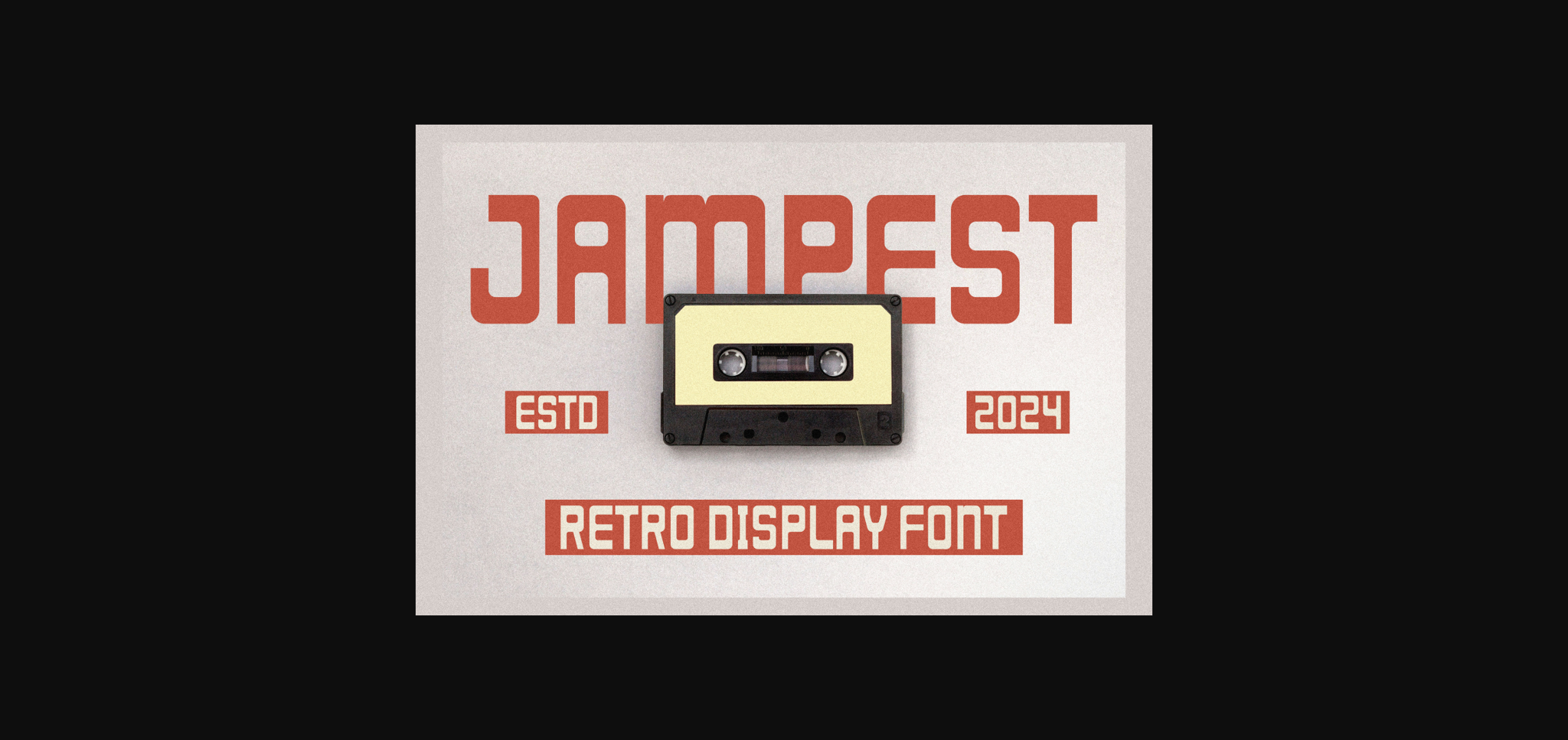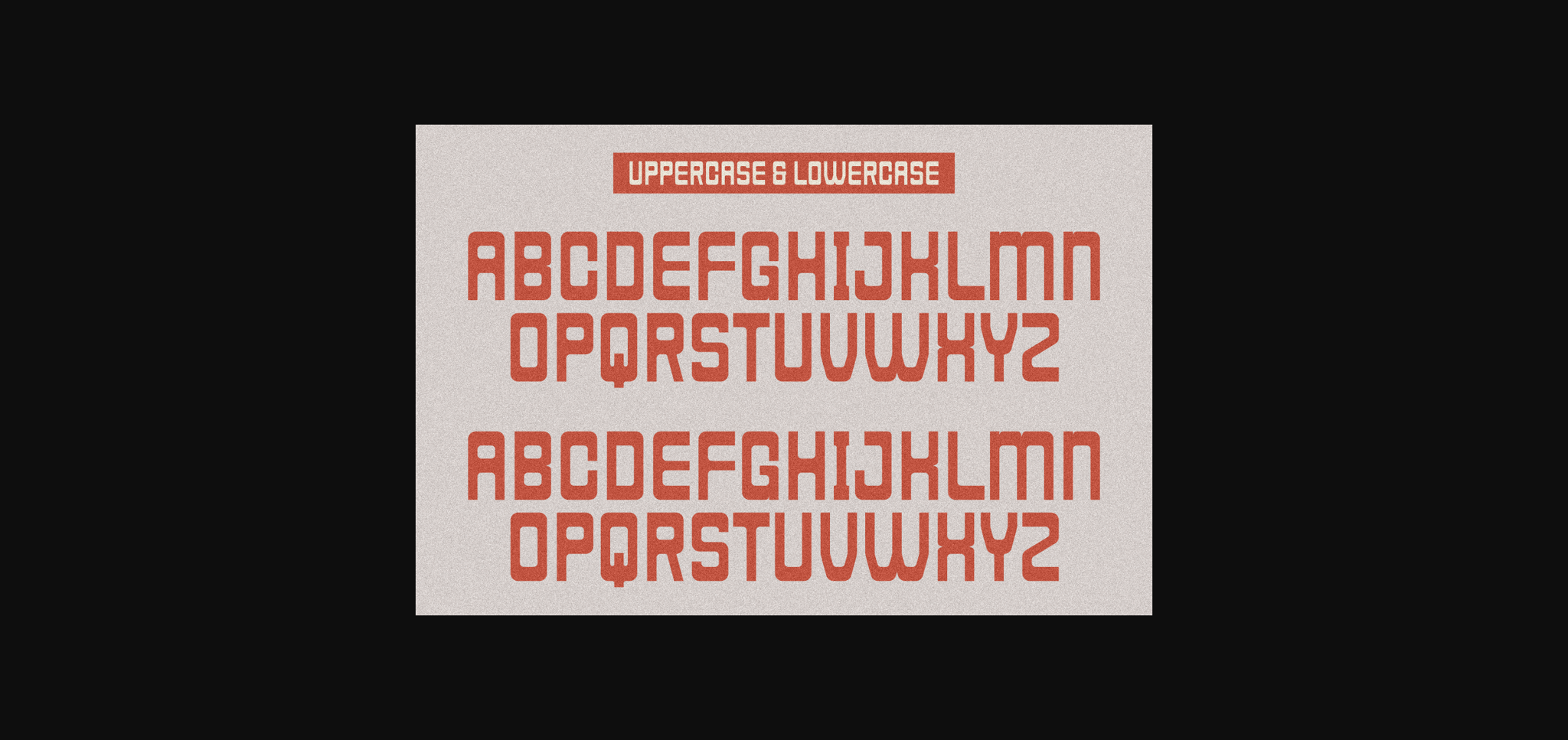
About Jampest Font
**Jampest** is a retro display bold font that is perfect for professional and product branding needs. This font is suitable for any branding project such as quotes, logos, blog headers, posters, ribbons, letters, invitations, stationery, etc… Designed to be versatile and flexible so it can be used on a variety of projects and mediums. extraordinary in a variety of contexts.